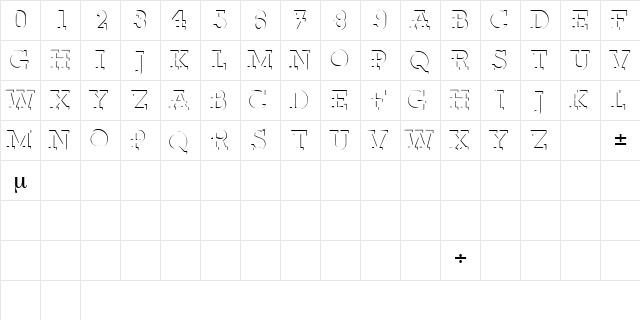
FabDecoCapsSSK Regular
Design Context for FabDecoCapsSSK Typeface
FabDecoCapsSSK is a composed and adaptable typeface that performs quietly and consistently across a wide range of design contexts.
Pro Tip: Use FabDecoCapsSSK in both headline and body roles to test its range before committing to a single application.